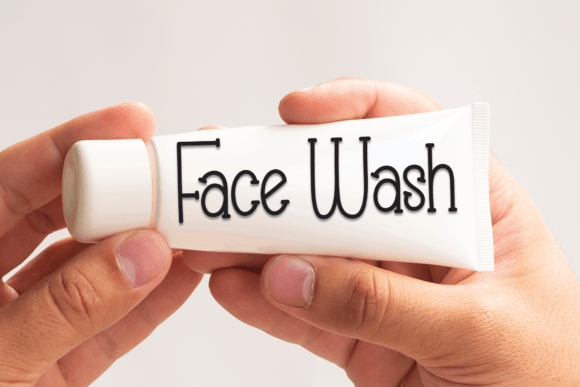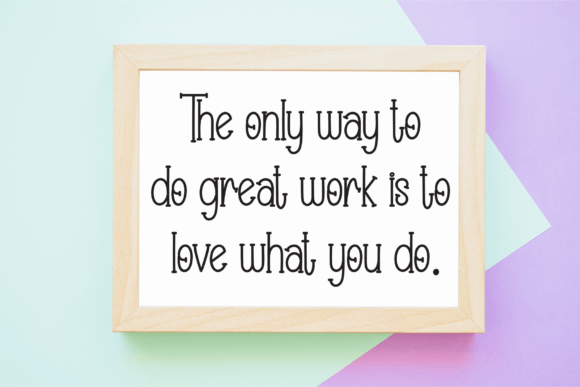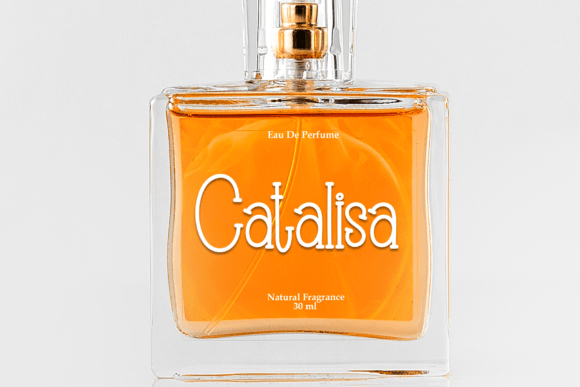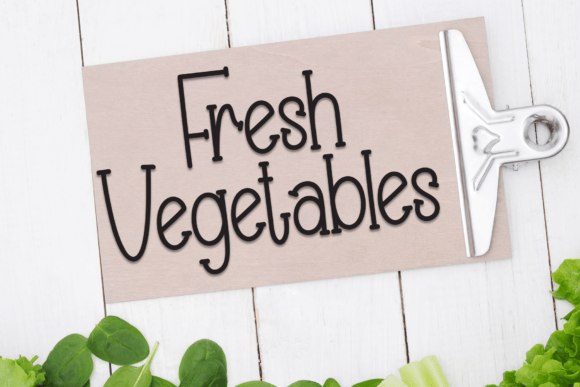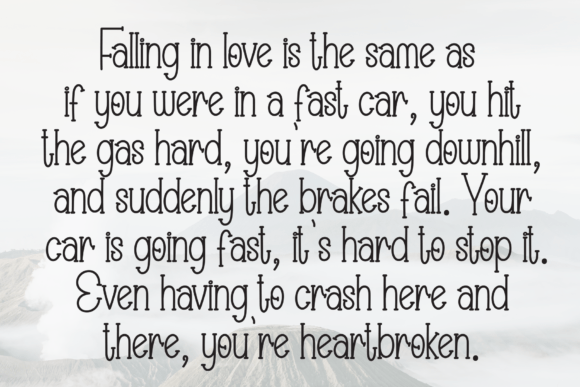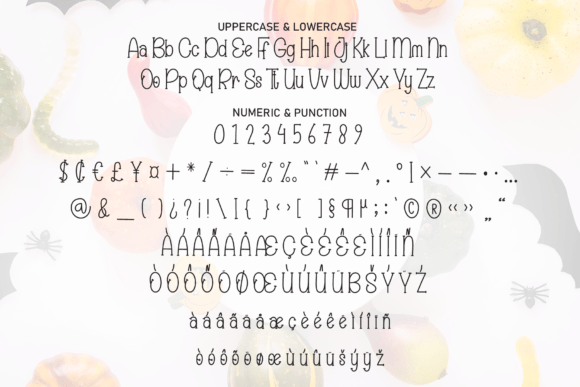
Happy Halloween Font: Add a Spooky Touch to Your Designs
Are you looking for a font that will add a playful and spooky touch to your Halloween designs? Look no further than the “Happy Halloween” font, a charming serif handwritten font that is perfect for creating fun and eye-catching Halloween invitations, decorations, and more.
What is Happy Halloween Font?
The “Happy Halloween” font is a unique and festive font that is specifically designed for the Halloween season. Its elegant curves and festive flair make it perfect for creating a wide range of Halloween-themed designs, from spooky invitations to cute decorations.
Key Features of Happy Halloween Font
- Serif Handwritten Font: The “Happy Halloween” font is a serif handwritten font, which gives it a personal and elegant touch.
- Playful and Spooky: The font has a playful and spooky feel to it, making it perfect for Halloween designs.
- Elegant Curves: The font features elegant curves that add a touch of sophistication to your designs.
- Festive Flair: The font has a festive flair that makes it perfect for creating fun and eye-catching Halloween designs.
Uses of Happy Halloween Font
The “Happy Halloween” font is a versatile font that can be used for a wide range of Halloween designs, including:
- Halloween Invitations: Create spooky and fun invitations for Halloween parties and events.
- Halloween Decorations: Use the font to create cute and spooky decorations for your home or office.
- Halloween Cards: Create personalized Halloween cards for friends and family.
- Halloween Social Media Posts: Use the font to create fun and eye-catching social media posts for Halloween.
Benefits of Using Happy Halloween Font
Using the “Happy Halloween” font for your Halloween designs has several benefits, including:
- Unique and Festive: The font is unique and festive, making your designs stand out from the crowd.
- Easy to Read: The font is easy to read, making it perfect for creating designs that need to be read clearly.
- Customizable: The font is customizable, allowing you to adjust the size, color, and style to fit your design needs.
Tips for Using Happy Halloween Font
Here are some tips for using the “Happy Halloween” font effectively in your designs:
- Use it with Other Halloween Elements: Use the font with other Halloween elements, such as images and graphics, to create a cohesive design.
- Experiment with Different Colors: Experiment with different colors to find the one that works best for your design.
- Keep it Simple: Keep your design simple and easy to read to ensure that the font is the focus.
The “Happy Halloween” font is a charming serif handwritten font that adds a playful and spooky touch to your Halloween designs. Its elegant curves and festive flair make it perfect for creating fun and eye-catching Halloween invitations, decorations, and more. With its versatility and ease of use, this font is a must-have for designers and crafters looking to create unique and festive Halloween designs.